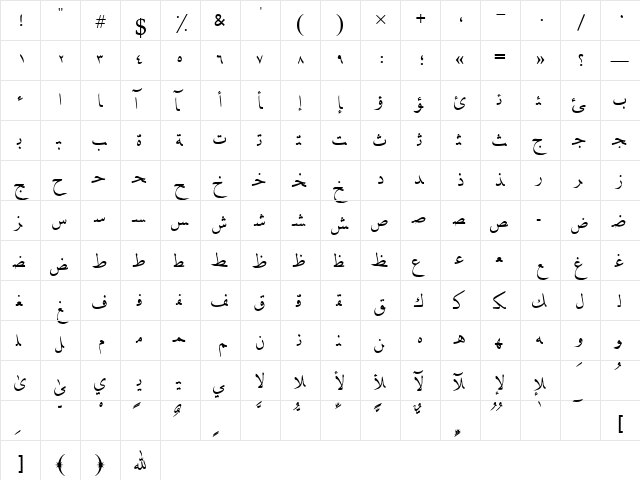
Karbala Regular
Design Context for Karbala Typeface
Karbala takes a measured approach to typography — its balanced proportions and neutral character make it a reliable workhorse for both digital and print work.